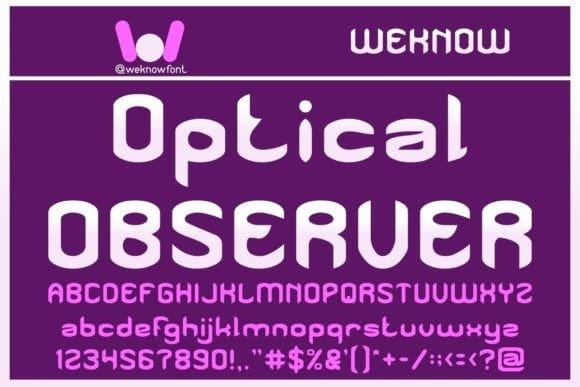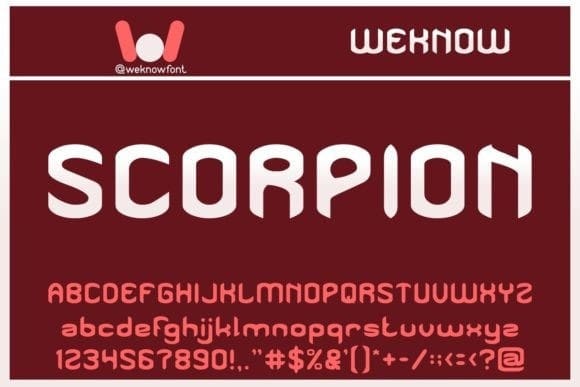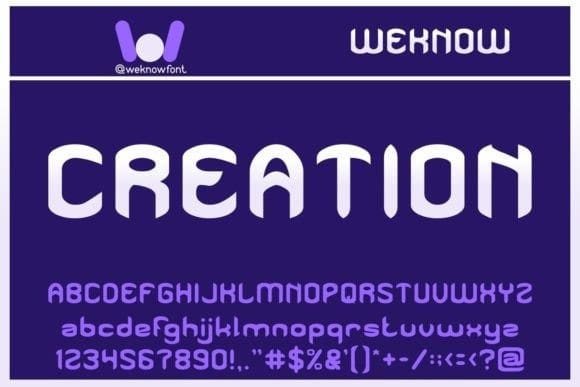
Creation Display Font
Creation Display Font, is a modern Gothic display font suitable for a logo, logotype, headline, corporate identity, brand identity, apparel industry, poster, music, movie, game, magazine, book, comic, cartoon, YouTube, Instagram, website, or any of your creative design projects.